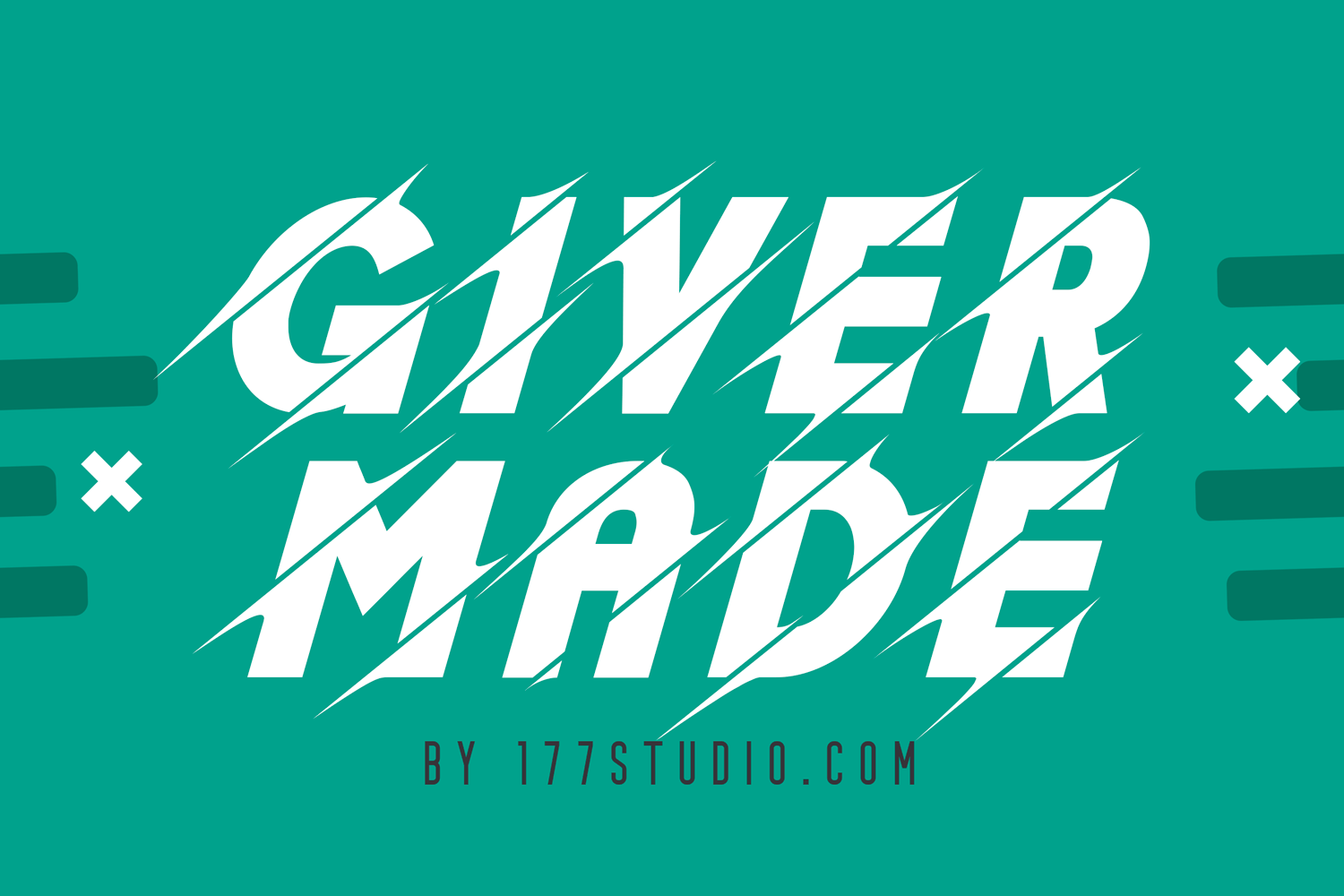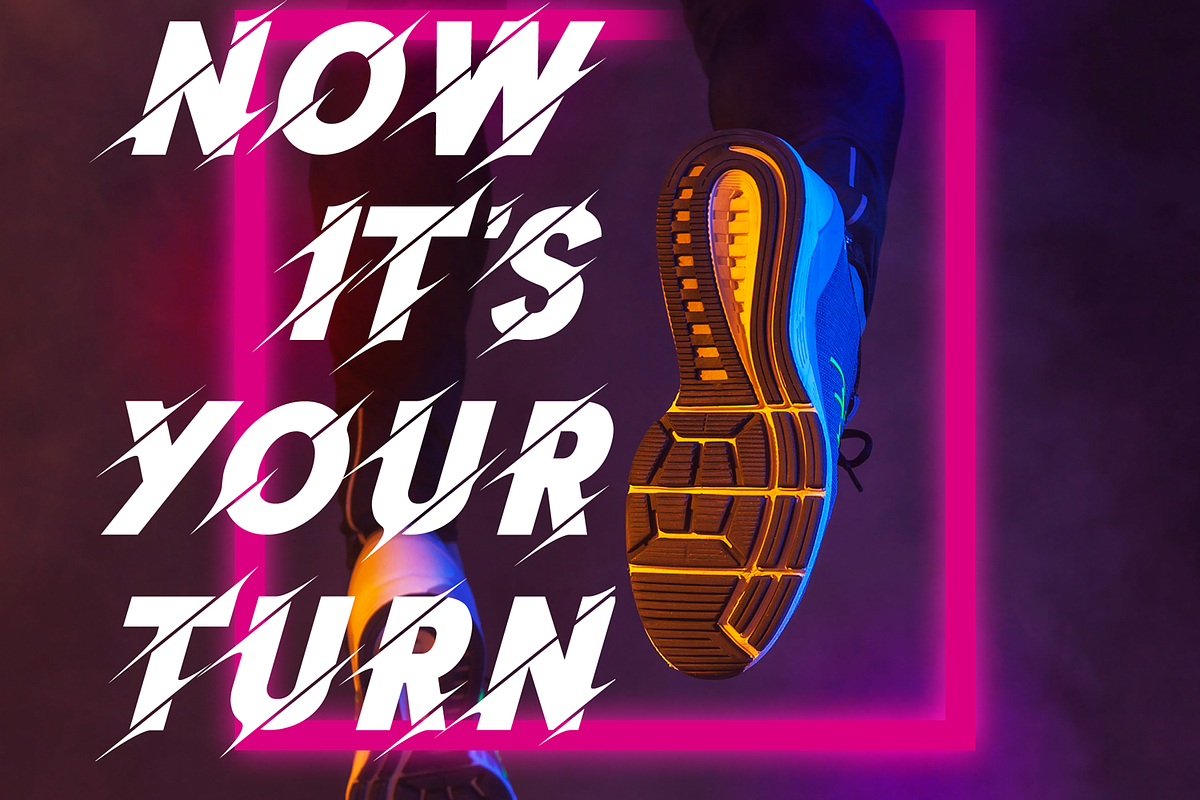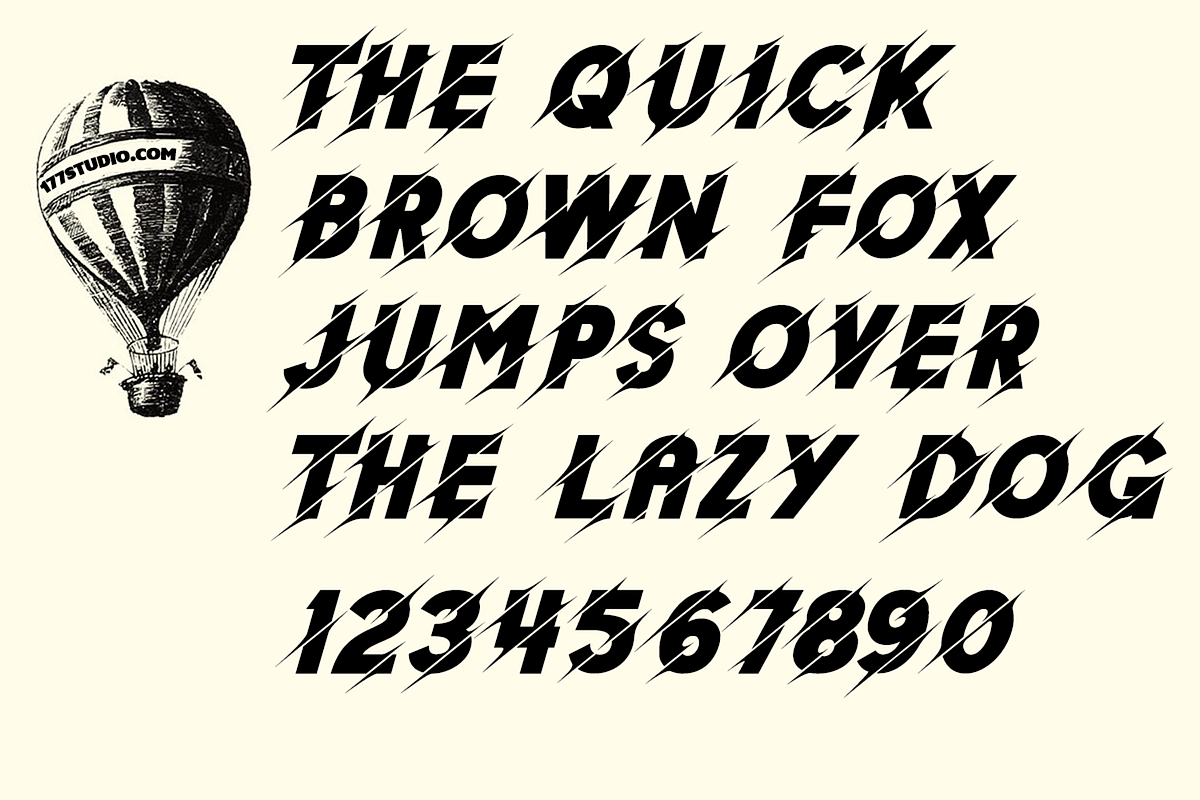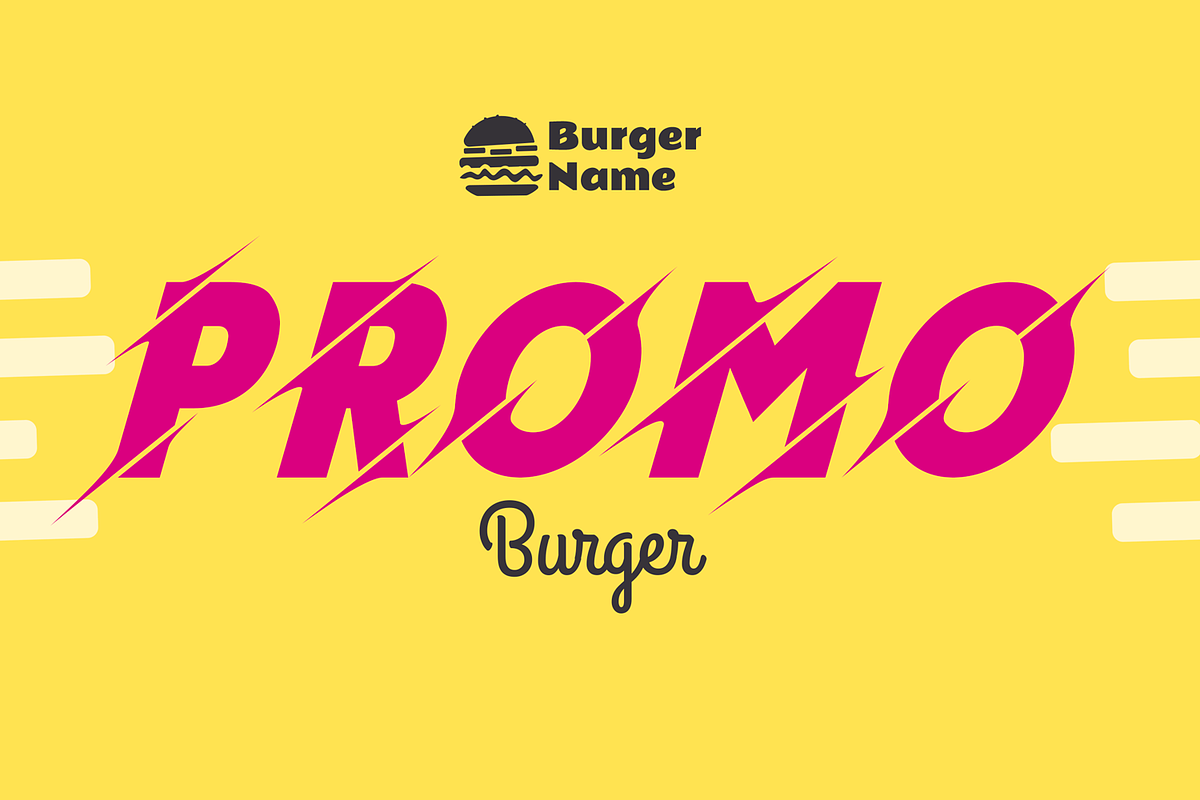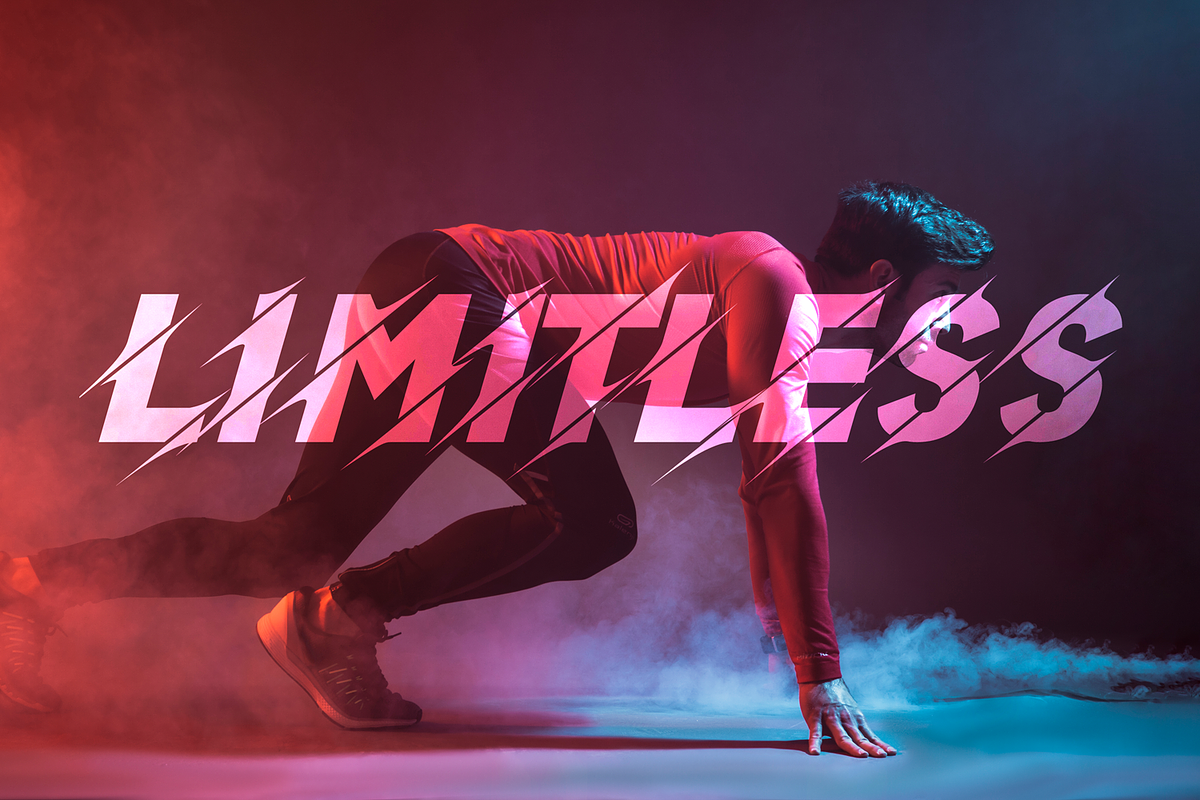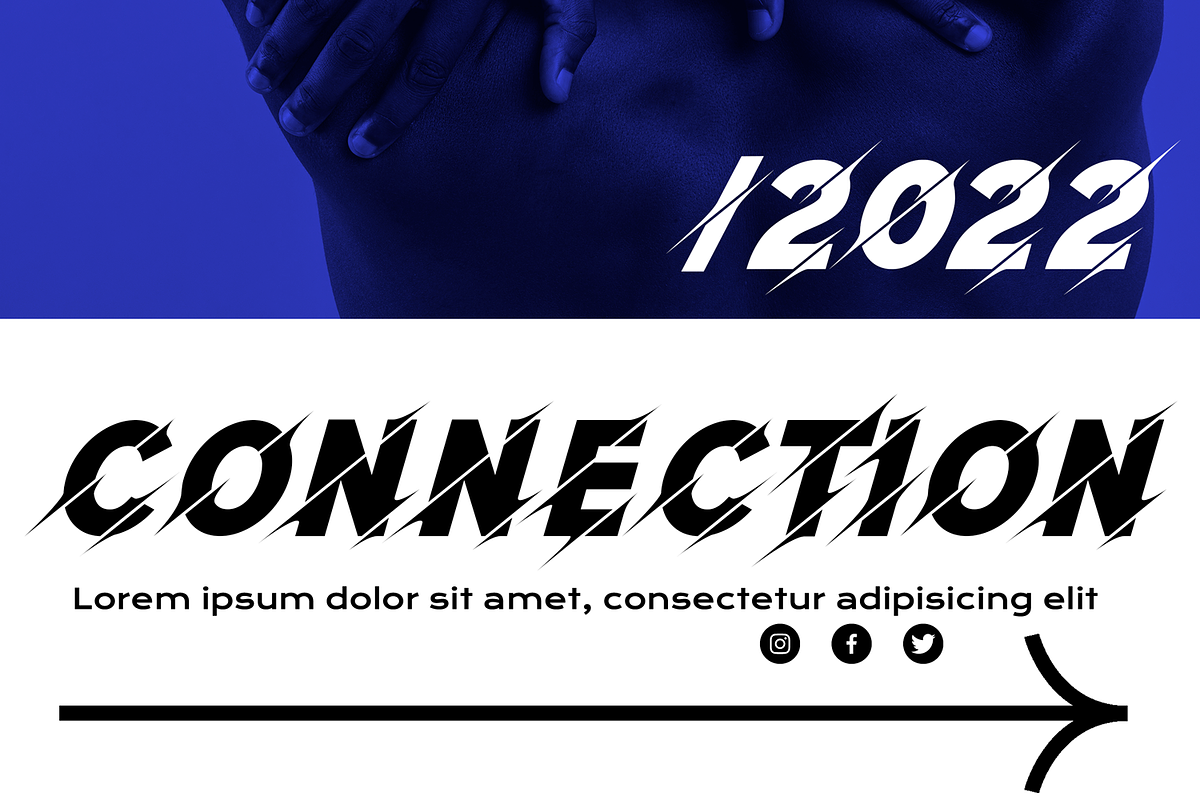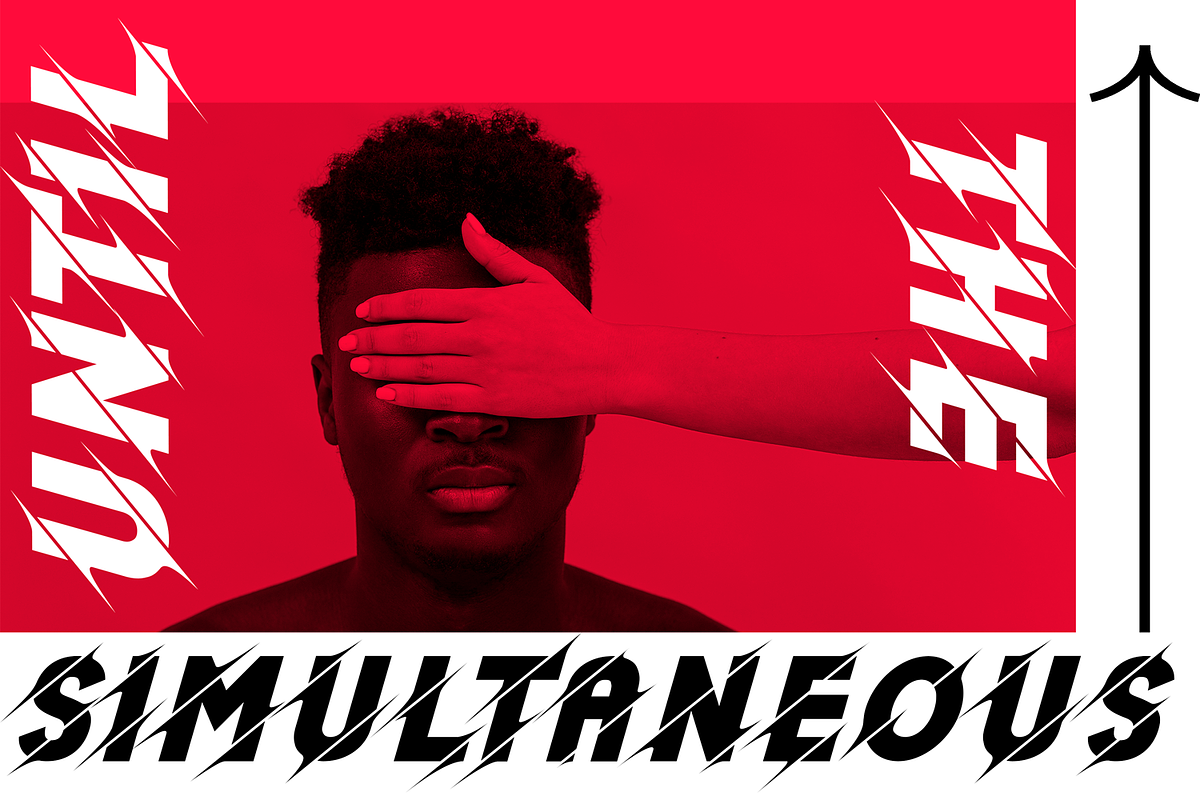
Giver Made Font
Giver Made Font is a futuristic and bold sport font, this font displays speed, angle, and showmanship. This is a font that was made to impress on something strong, sharp yet dynamic. Ideal for; Logos, printed quotes, invitations, image overlays, greeting cards, product packaging, text headers, & whatever else your imagination holds!